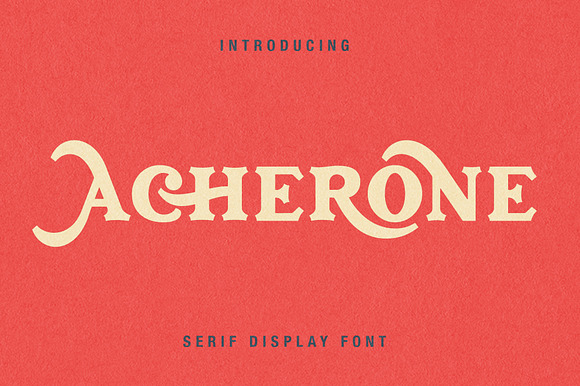
Acherone Serif Display Font
Acherone Serif Display Font by RunsellStudio is a font selected for branding, posters, packaging, typography.
Why Acherone Serif Display Font is worth a look
Acherone Serif Display Font by RunsellStudio fits naturally into Branding, posters, packaging, typography.